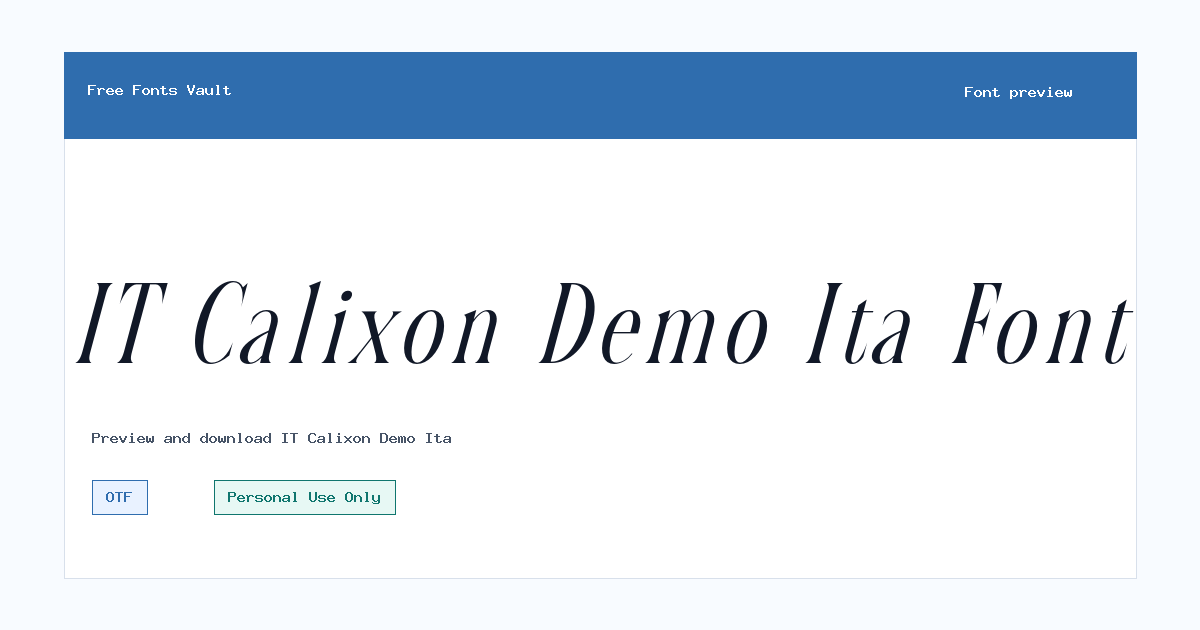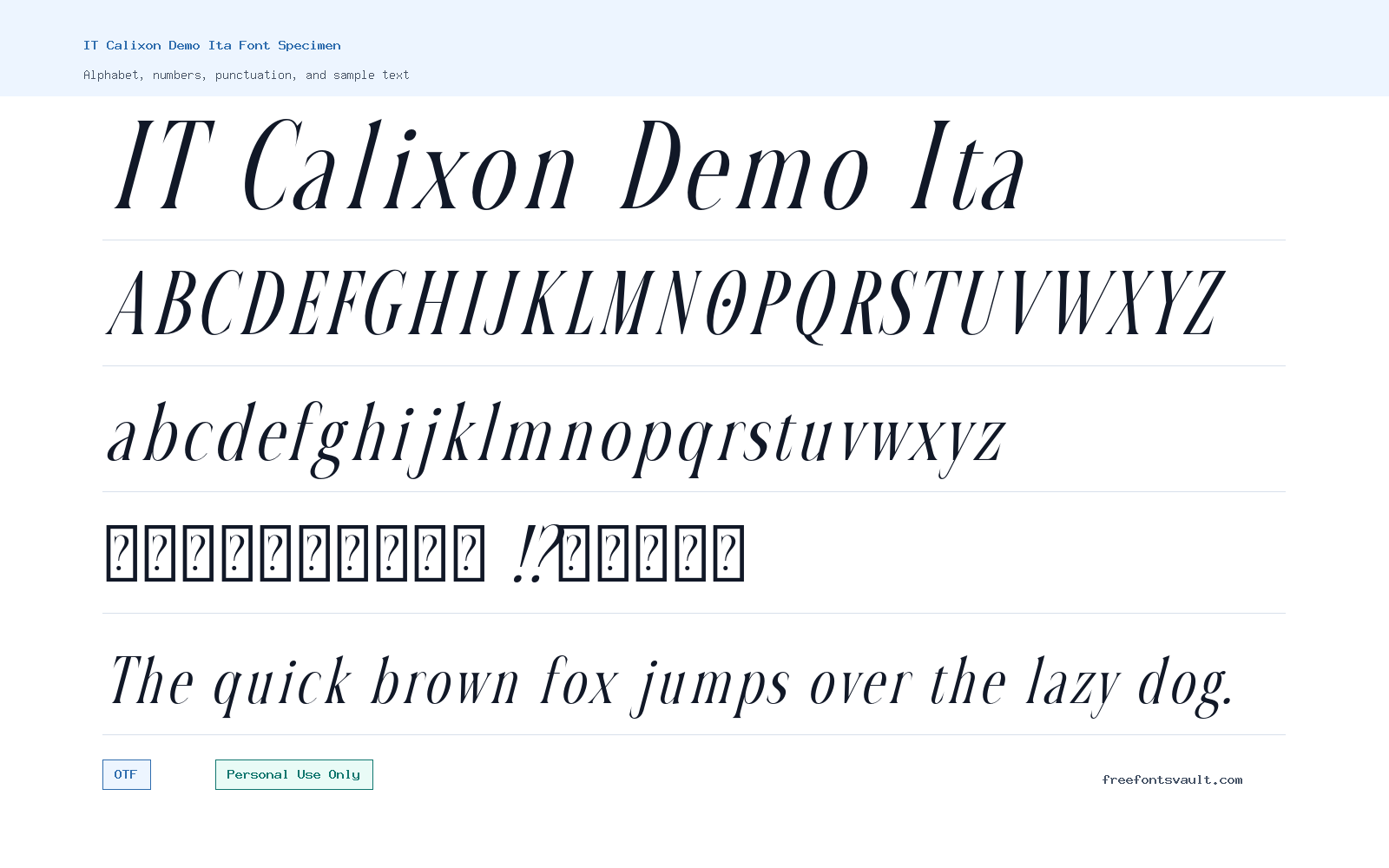
IT Calixon Demo Ita
- Designer Indotype
- Foundry Indotype Foundry
IT Calixon Demo Ita font.
IT Calixon Demo Ita is an italic serif demo font from Indotype Foundry. It is a good choice to try when you need a slanted serif voice for display text, previews, and personal design experiments.
About IT Calixon Demo Ita
IT Calixon Demo Ita has the character of an italic serif: angled letterforms, a formal rhythm, and a more expressive feel than an upright text face. Because the file is marked as a demo italic style, it is best approached as a preview or trial font rather than a complete production family. Use it to test the mood of a headline, logo sketch, book-cover concept, invitation layout, or poster title before deciding whether you need a broader license or a fuller version of the typeface.
This font works best where the text can stay short and intentional. Try it in names, titles, quotes, packaging mockups, editorial headings, boutique branding studies, social graphics, or display lines where an italic serif can add movement without needing long paragraphs. For logo work, test the exact brand name in several sizes and check how the slant, spacing, and curves behave in all caps, title case, and lowercase. For posters and web mockups, keep enough contrast around the letters and avoid crowding the line height, since italic serif shapes can lose clarity when packed too tightly.
For pairing, keep the supporting font simple. A clean sans serif can balance the decorative movement of an italic serif in menus, captions, body copy, and interface text. If you prefer an all-serif layout, pair it with a quiet upright serif that does not compete with the italic style. Avoid using several expressive display fonts in the same design, especially in logos or posters, because the result can feel busy and reduce readability. Let IT Calixon Demo Ita carry the display role, then use a neutral companion for practical information.
- Italic serif style with a slanted, expressive display feel
- Regular 400-weight demo italic variant
- Useful for short text, title treatments, and personal mockups
- Best paired with a simple supporting font for readability
- Logo drafts and brand-name experiments
- Book covers, editorial headlines, and quote layouts
- Invitation designs and boutique-style personal projects
- Web mockups where an italic serif headline is being tested
- Packaging concepts, labels, and short display text
Before using IT Calixon Demo Ita in a finished project, preview your exact text at the sizes you need. Check spacing, punctuation, numerals, accented characters, and readability on both light and dark backgrounds. For logos, convert only after the wording and license are confirmed. For posters or web mockups, use it as the headline font and choose a plainer companion typeface for body text, buttons, dates, captions, and longer descriptions.
What kind of font is IT Calixon Demo Ita?
It is an italic serif demo font. The slanted serif style makes it better suited to short display text than long body copy.
Who designed IT Calixon Demo Ita?
The font is credited to Indotype, and the foundry is listed as Indotype Foundry.
Can I use IT Calixon Demo Ita for a logo?
Is IT Calixon Demo Ita good for body text?
It is better for headings, names, titles, and short display lines. For paragraphs, pair it with a simpler upright serif or sans serif.